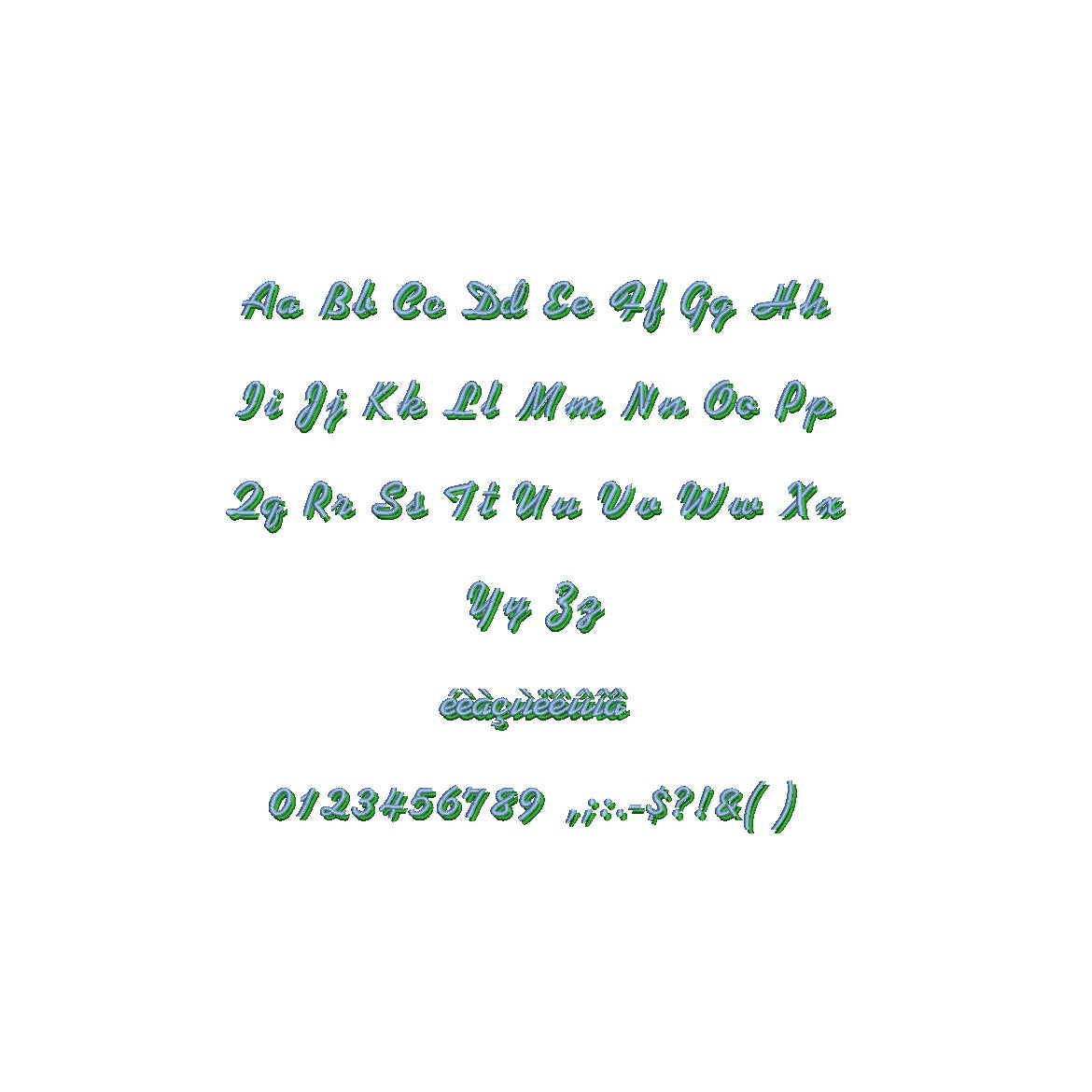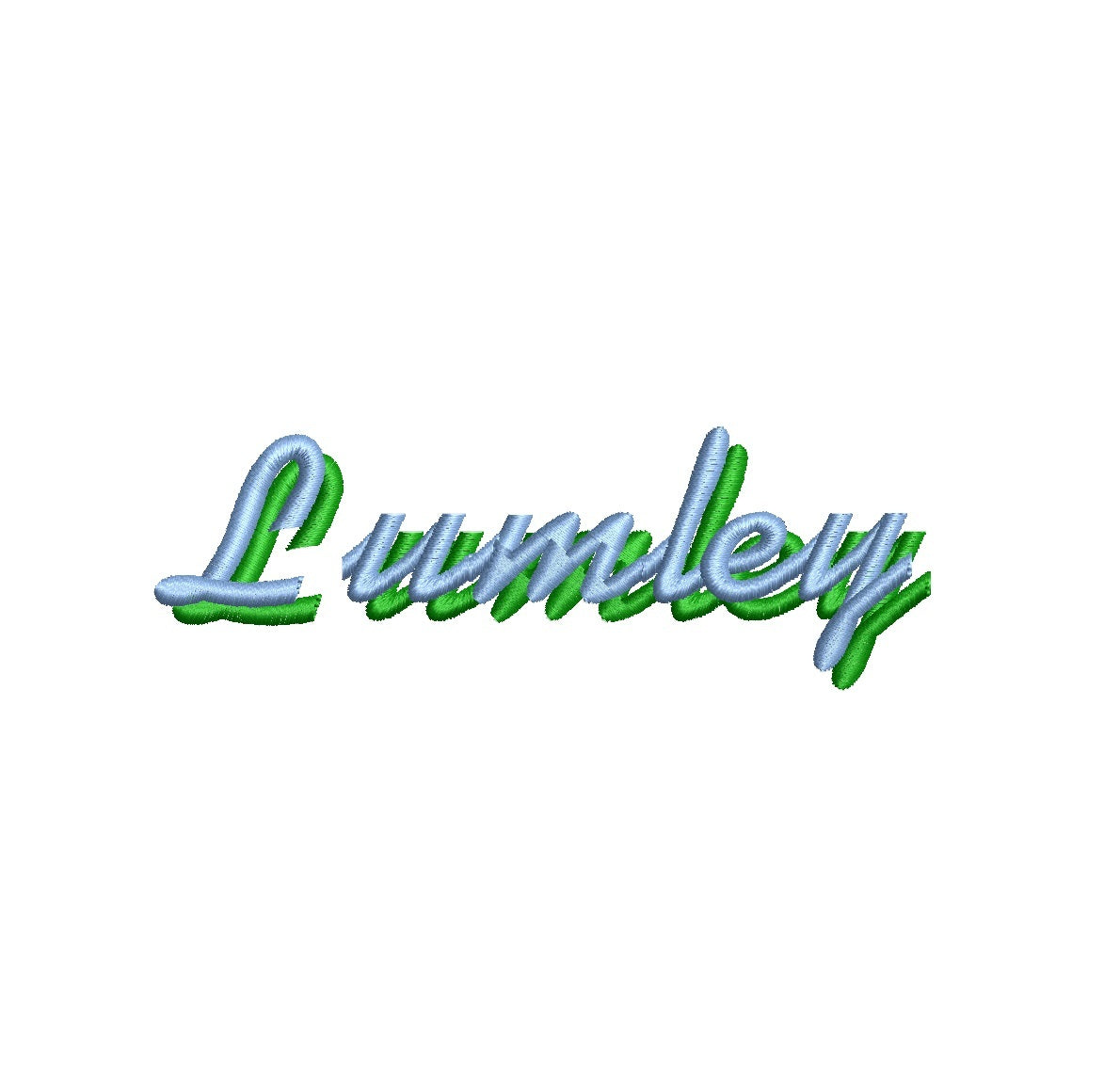
Elevate your designs with the sophisticated Lumley Shadow ESA font. Fully compatible with Wilcom Studio e4.5.6 and Hatch 3 versions and up, this font brings a touch of timeless elegance and modern allure to your projects. The font's intricate shadows and clean lines create a captivating visual impact that sets your designs apart. Streamline your creative process and achieve impeccable results by utilizing this font with industry-leading software. Upgrade your projects with the compatibility of Lumley Shadow ESA font and craft visuals that leave a lasting impression. Embrace sophistication and creativity for your design journey today!